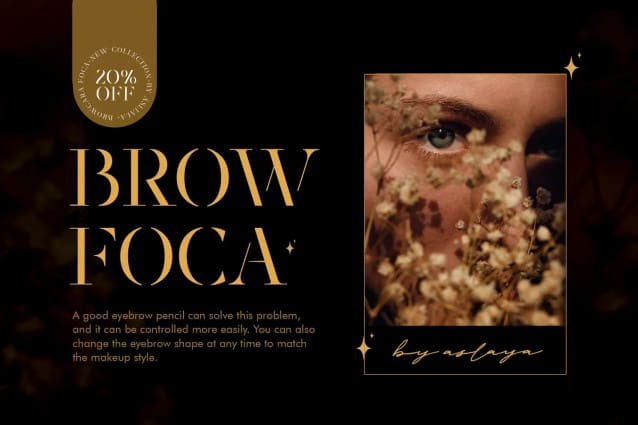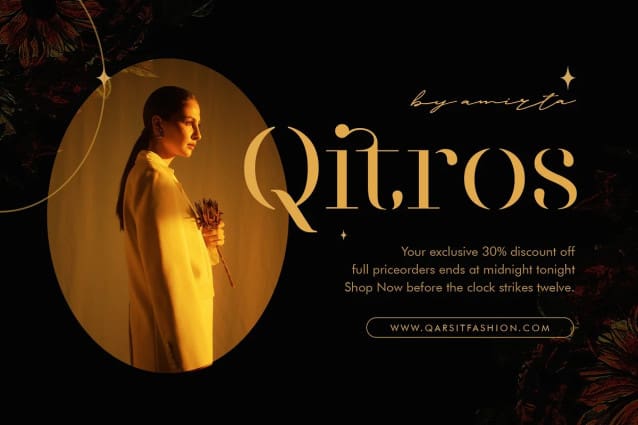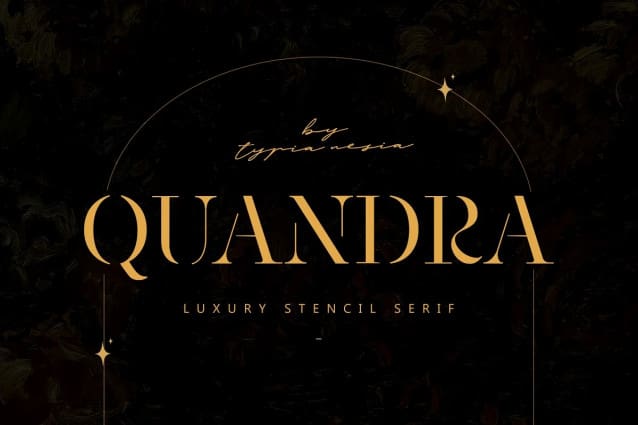
Quandra Font
Quandra Font, a Luxury Stencil Serif font, is designed to bring an air of opulence to your creative projects. Its Elegant style makes it perfect for high-end branding. Quandra can be applied in various design contexts, Such logo design for luxury brands, upscale products, or high-end services, Branding Collateral, Packaging Design for premium product, Website Headings, Printed Materials, Event Invitations, Fashion Industry, Interior Design, Restaurant Menus, Book Covers. Whether you’re working on a luxury fashion campaign or a premium product label, Quandra Font can add a touch of Elegance to every application.